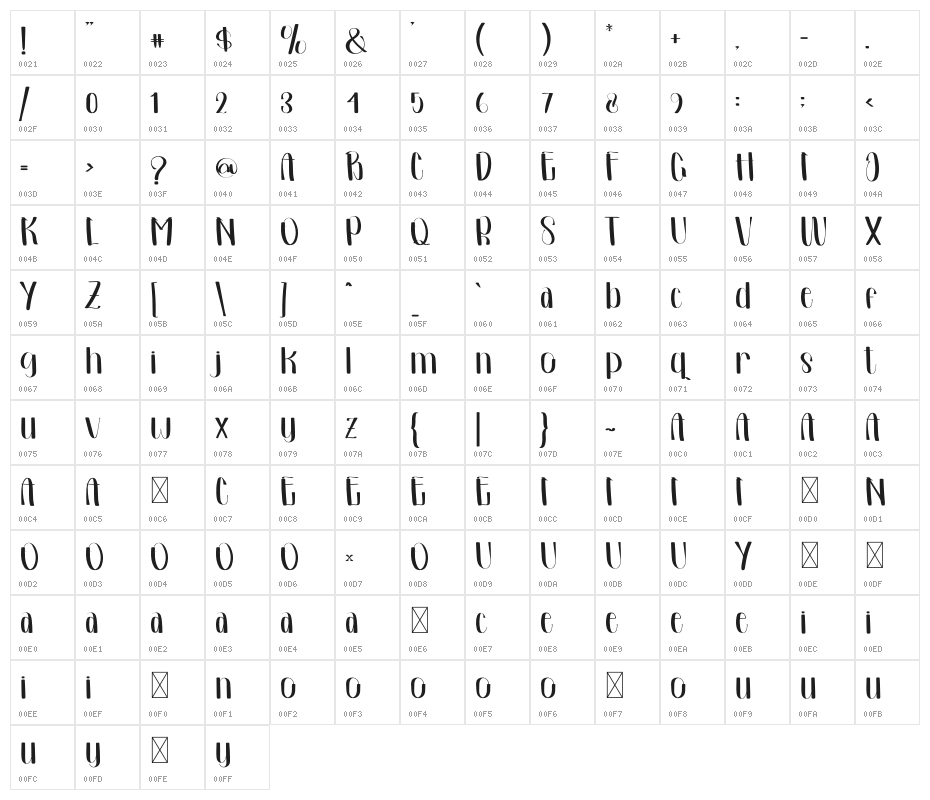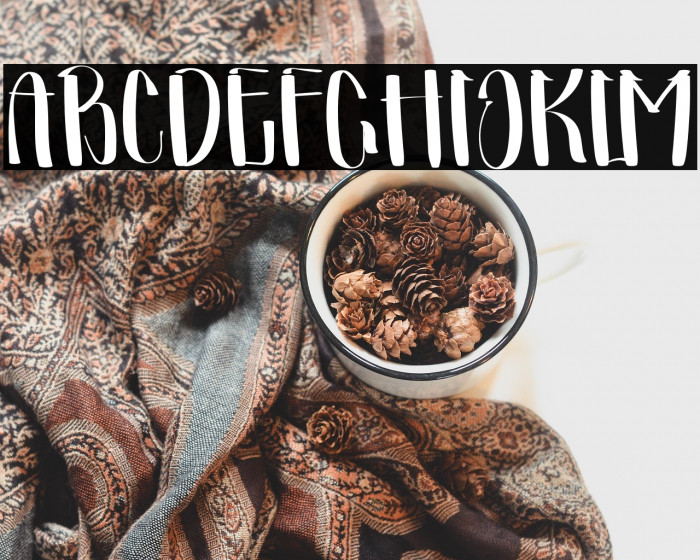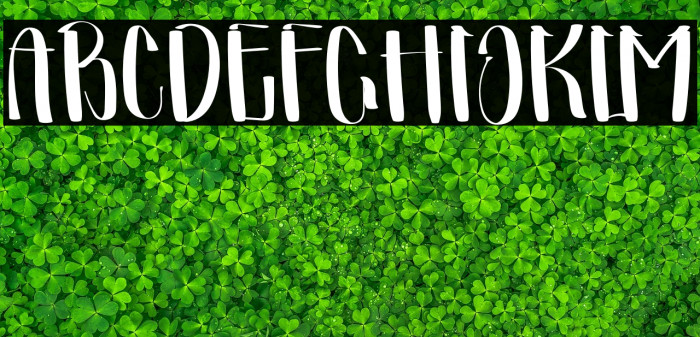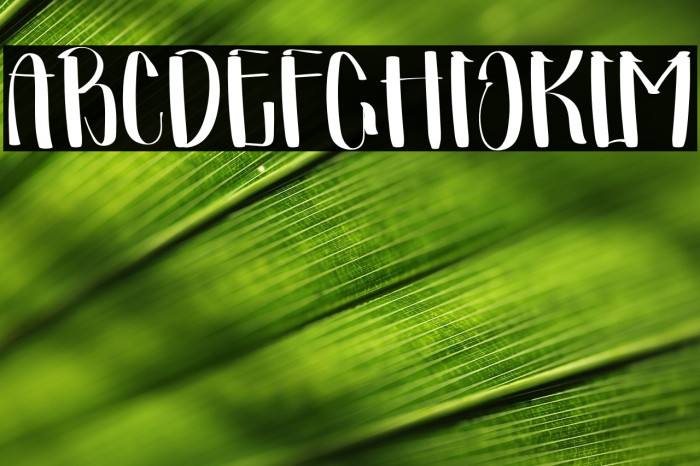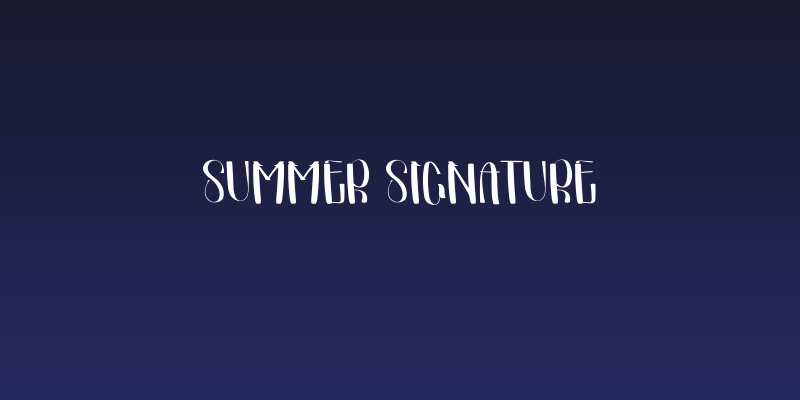
Summer Signature Font
Summer Signature Description
This font features a distinctive and elegant script style with a modern twist. The characters are elongated and slightly slanted, giving them a flowing and dynamic appearance. The uppercase letters are bold and prominent, while the lowercase letters maintain a consistent style with a touch of whimsy. The numbers are clear and legible, complementing the overall aesthetic. Special characters are creatively integrated, adding to the font's versatility. The strokes vary in thickness, providing a medium contrast that enhances readability while maintaining an artistic flair.
| Use Case | Logos, Invitations, Branding |
| Proposed Projects | Ideal for wedding invitations, branding projects, logo designs, and elegant stationery. |